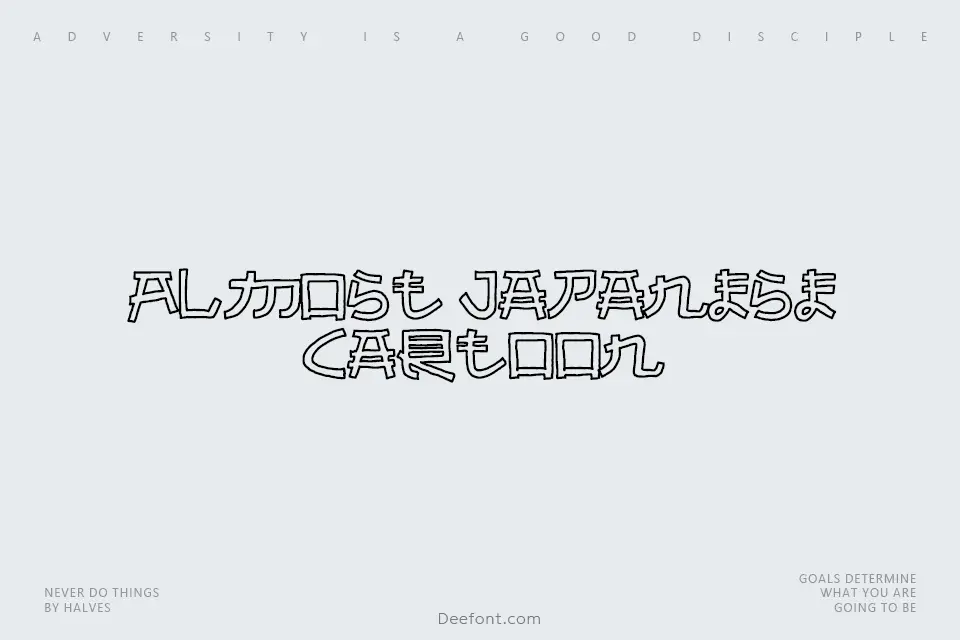
Almost Japanese Cartoon Font
Almost Japanese Cartoon Font is a playful typeface blending retro anime aesthetics with modern design sensibilities. Characterized by bold, uneven strokes and exaggerated curves, it mimics the hand-drawn dynamism of vintage Japanese animation titles. The font features quirky letterforms with slight imperfections, giving it an approachable, nostalgic charm reminiscent of 1980s–90s cartoon logos. Its angled terminals and irregular baseline create a sense of movement, while the rounded edges maintain readability. Ideal for projects needing vibrant, youthful energy, this font works exceptionally well for comic book covers, arcade-style graphics, or any design seeking to evoke whimsical storytelling and pop culture flair.